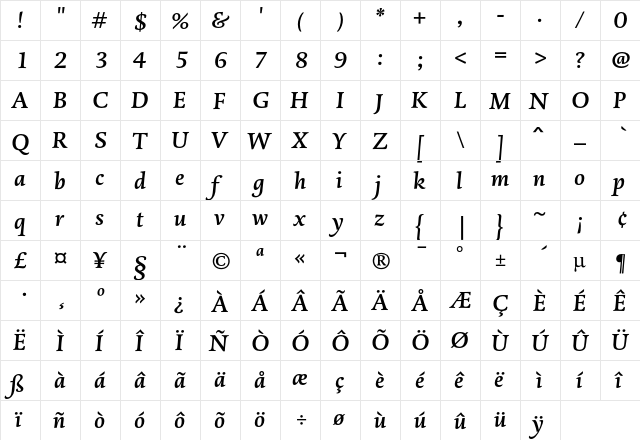
DTLDorianT MediumItalic Font Preview
DTLDorianT MediumItalic
Design Context for DTLDorianT Typeface
DTLDorianT offers clean, dependable letterforms without strong stylistic allegiance, making it a practical choice for designers who need flexibility. The slanted form adds forward momentum and visual energy.
Pro Tip: Try DTLDorianT for annotation and caption copy alongside an upright companion — the contrast in angle creates a dynamic but ordered typographic system.